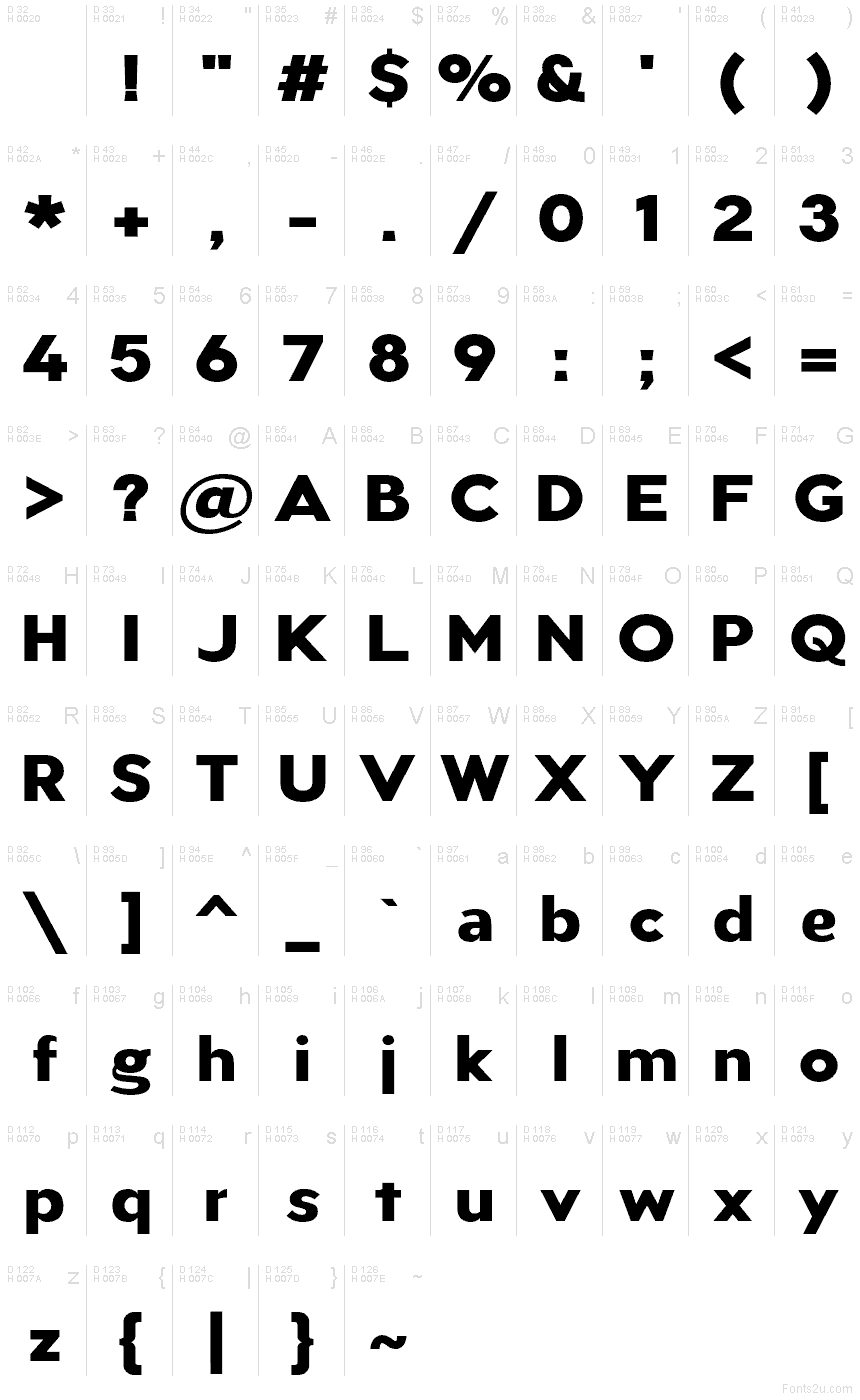
AukimExtraBoldExpanded
Aukim ExtraBold Expanded font by Audry Kitoko Makelele is an expanded, bold, and modern sans serif font which strikes with its sleek and geometric style. Aukim is a professional-looking display font that ends with clean open counters in the majority of letters which form minimalist letter shapes that give it a distinctive look.
Use Aukim ExtraBold Expanded free typeface for digital or printed headlines, subheadings, and titles. Customize your logo designs with this font to obtain unique results every time based on the rest of your design elements. Labels, packaging designs, book covers, website layouts are some additional usage ideas for this font.